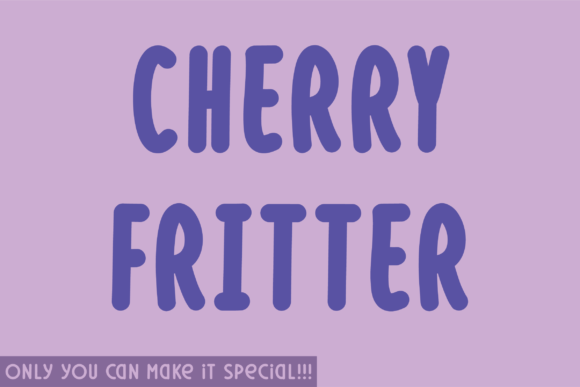
Step into the realm of captivating typography with Cherry Fritter, the font that dances upon your screen like a playful brushstroke. Crafted by the visionary Hanna Bie, this sans serif masterpiece breaks the mold, inviting you to indulge in its natural charm.
Let your words dance with a newfound allure, as Cherry Fritter adorns them with its whimsical personality. Whether you're crafting heartfelt quotes, jotting down inspiring notes, designing eye-catching tees, or unleashing your creativity in product design, Cherry Fritter emerges as the perfect companion.
With its unyielding commitment to originality, Cherry Fritter sets itself apart from the mundane. Its untouched nodes within each character's indentation give birth to a font that oozes individuality, capturing the essence of genuine artistry. Every letter, every curve, and every flick resonates with a story waiting to be told.
Unleash the storyteller within, as Cherry Fritter becomes your canvas for visual expression. Its natural flow and effortless grace transform ordinary words into captivating narratives, inviting your audience to embark on a journey of a thousand emotions. Ignite your imagination and watch as your designs bloom with Cherry Fritter's inherent beauty.